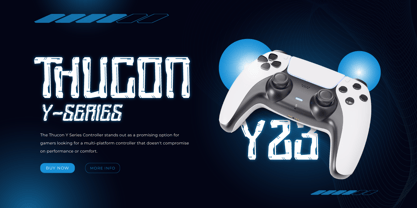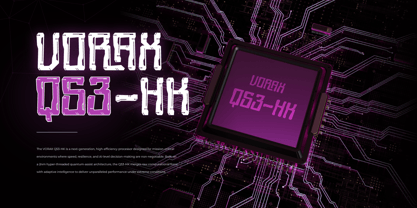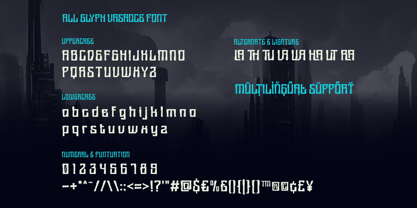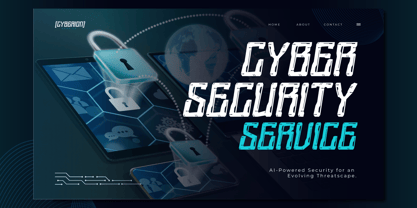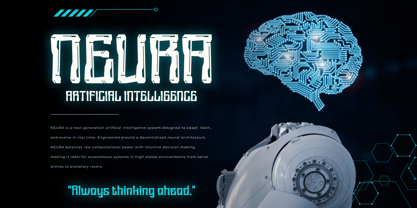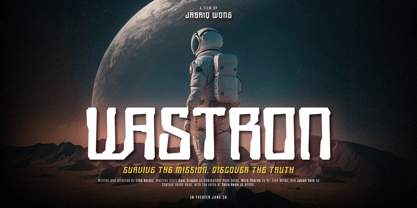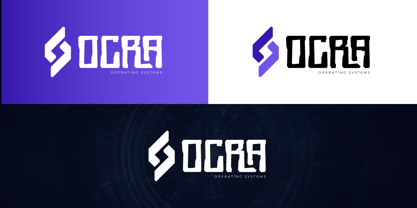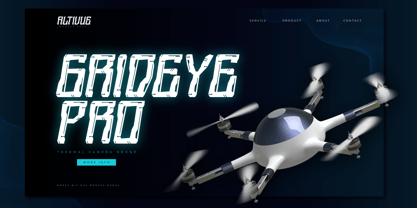
Step into the future with Vasroce, a sleek and cutting-edge futuristic display font designed for modern, high-tech, and sci-fi themed projects. Vasroce features clean lines, geometric structures, and a unique character style that brings a sharp, innovative edge to your designs. It’s perfect for branding, technology presentations, game titles, UI/UX interfaces, posters, and anything that needs a forward-thinking visual identity.
With its minimal yet striking design, Vasroce delivers an ultra-modern aesthetic that captures the imagination. Whether you're working on a tech startup logo, a science fiction cover, or digital products, Vasroce will help your message stand out with sophistication and precision.